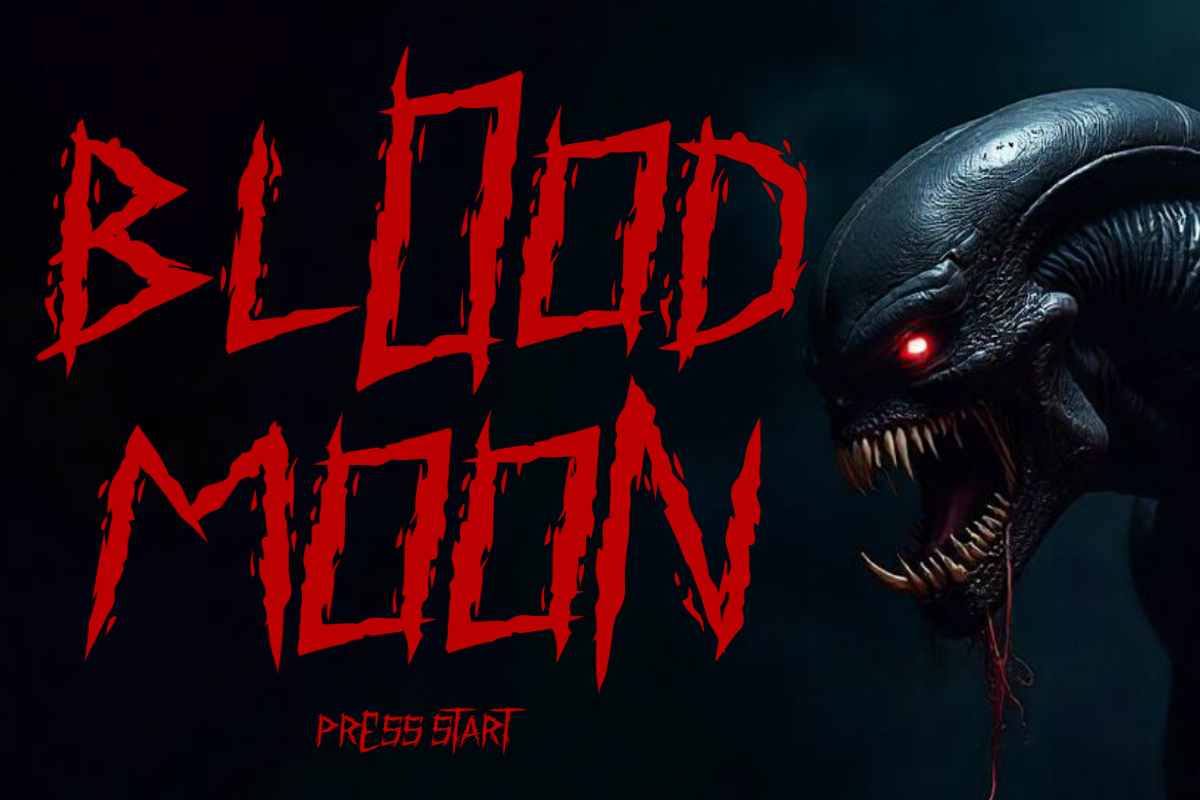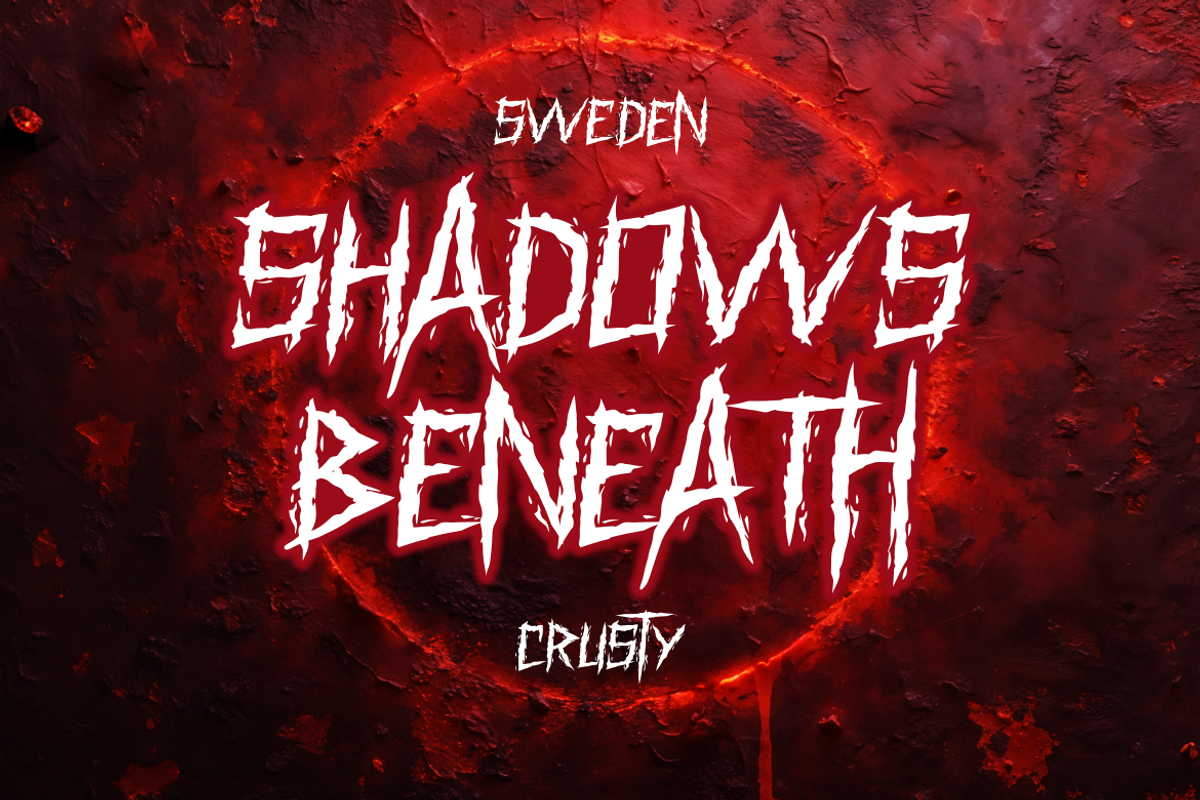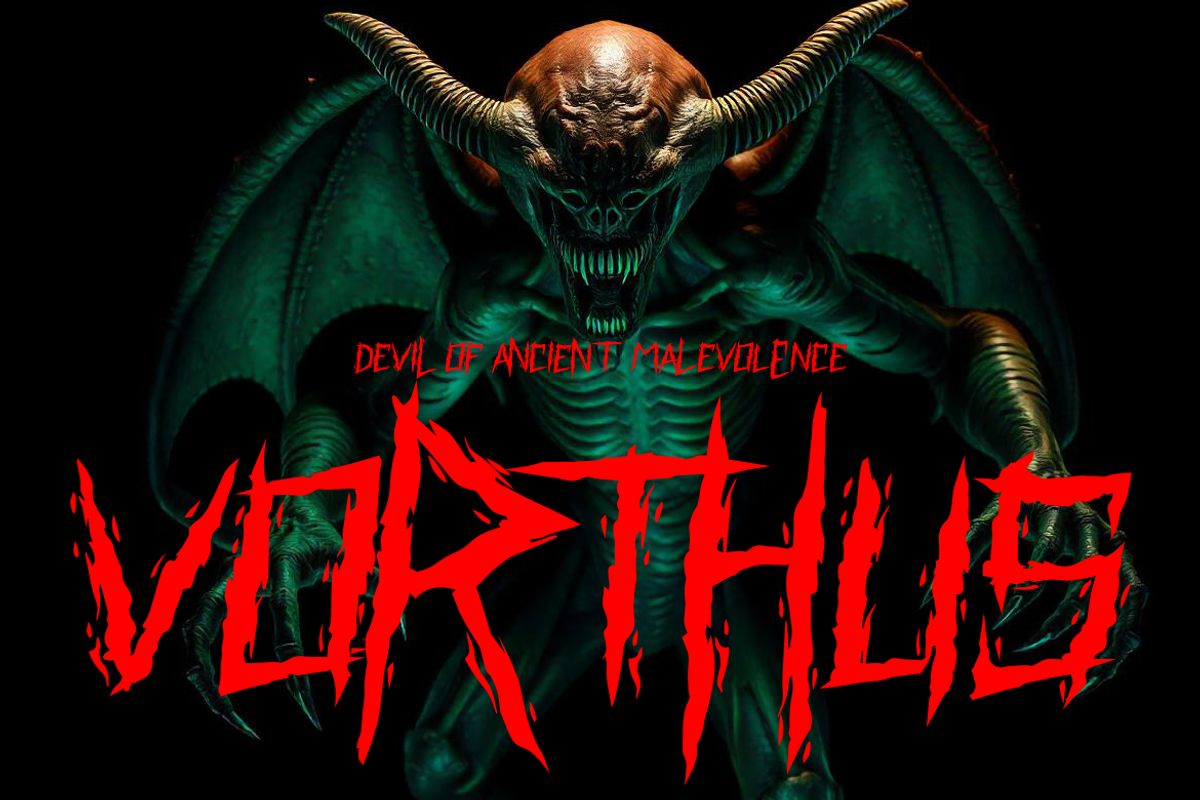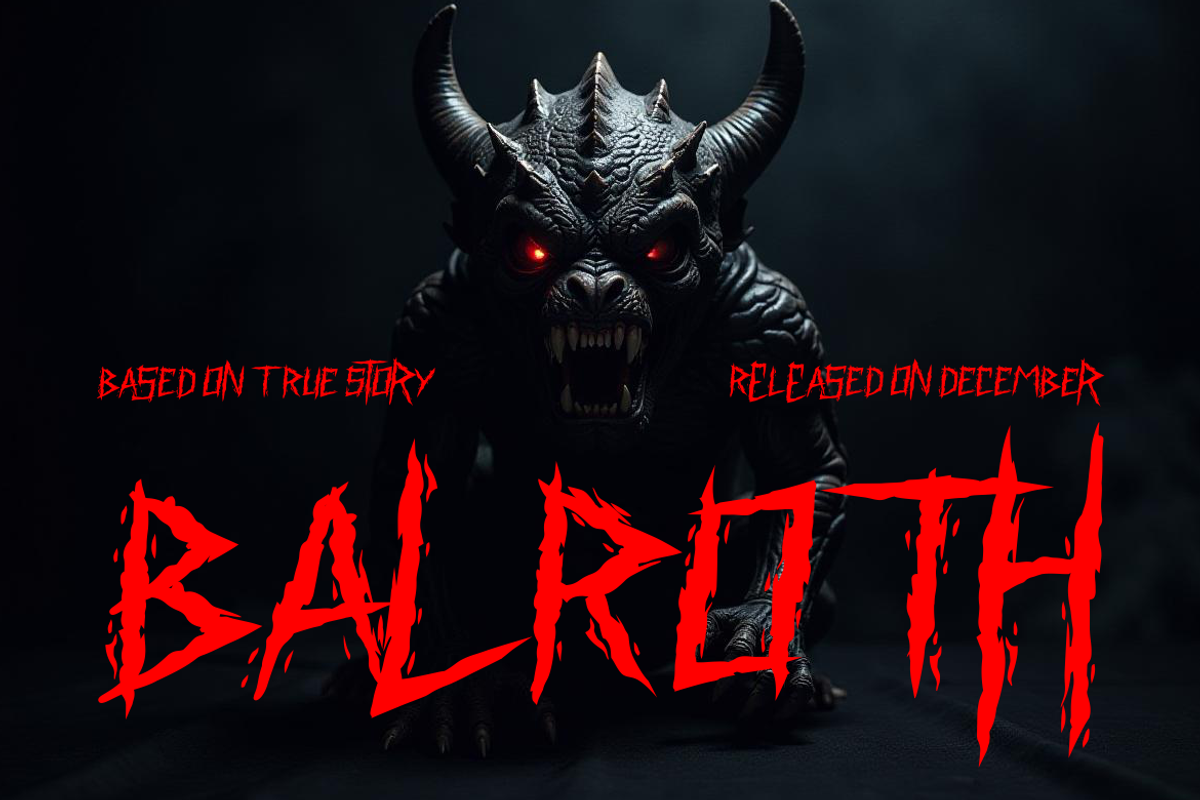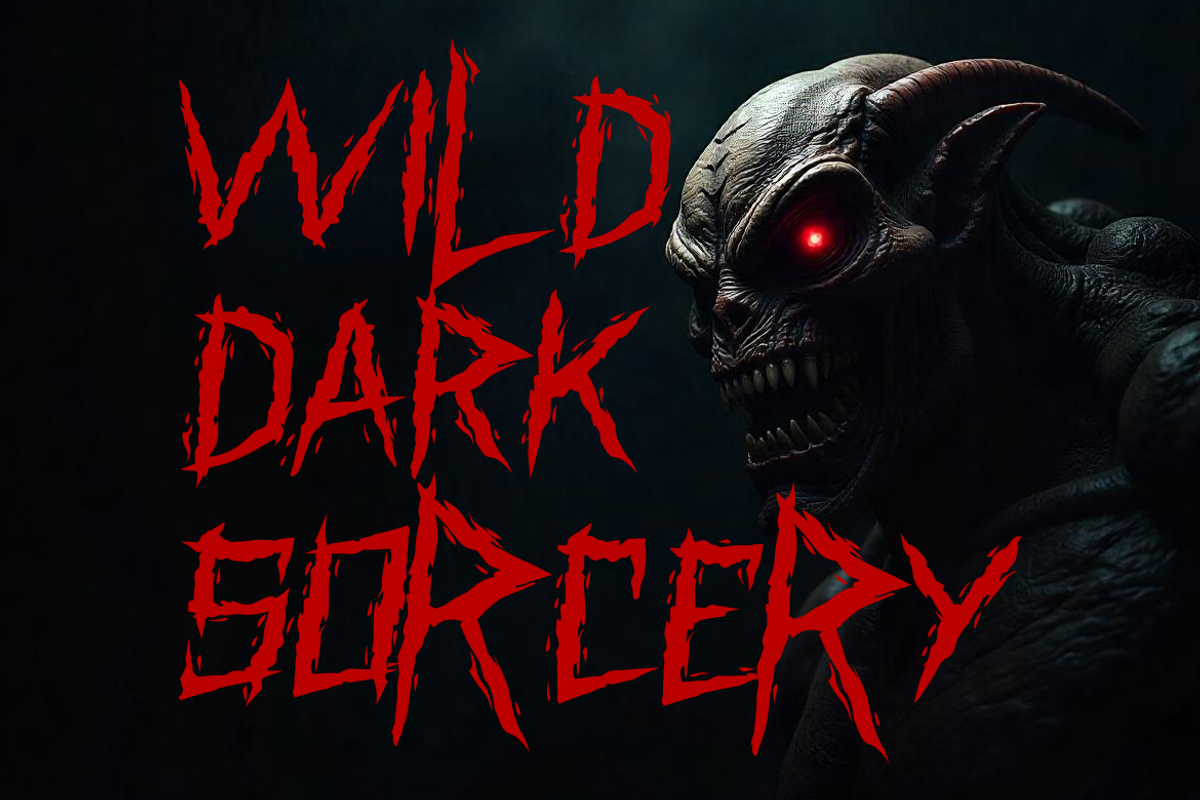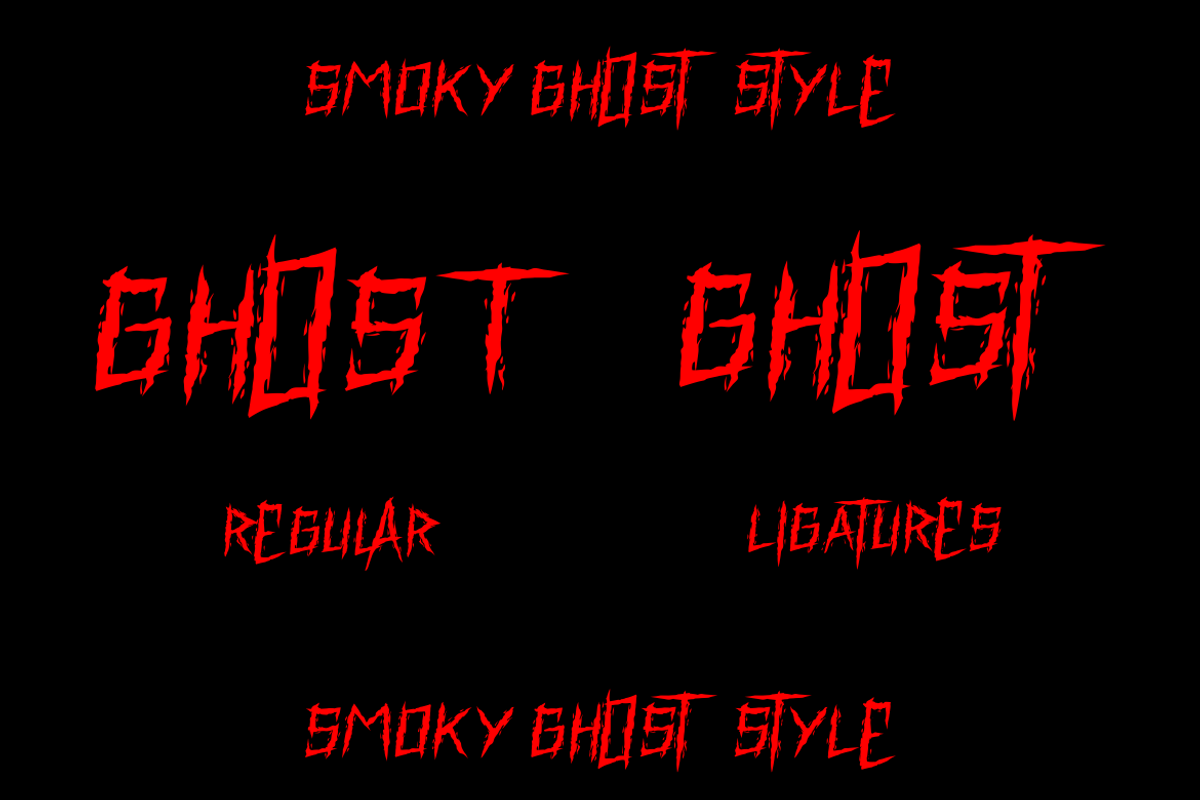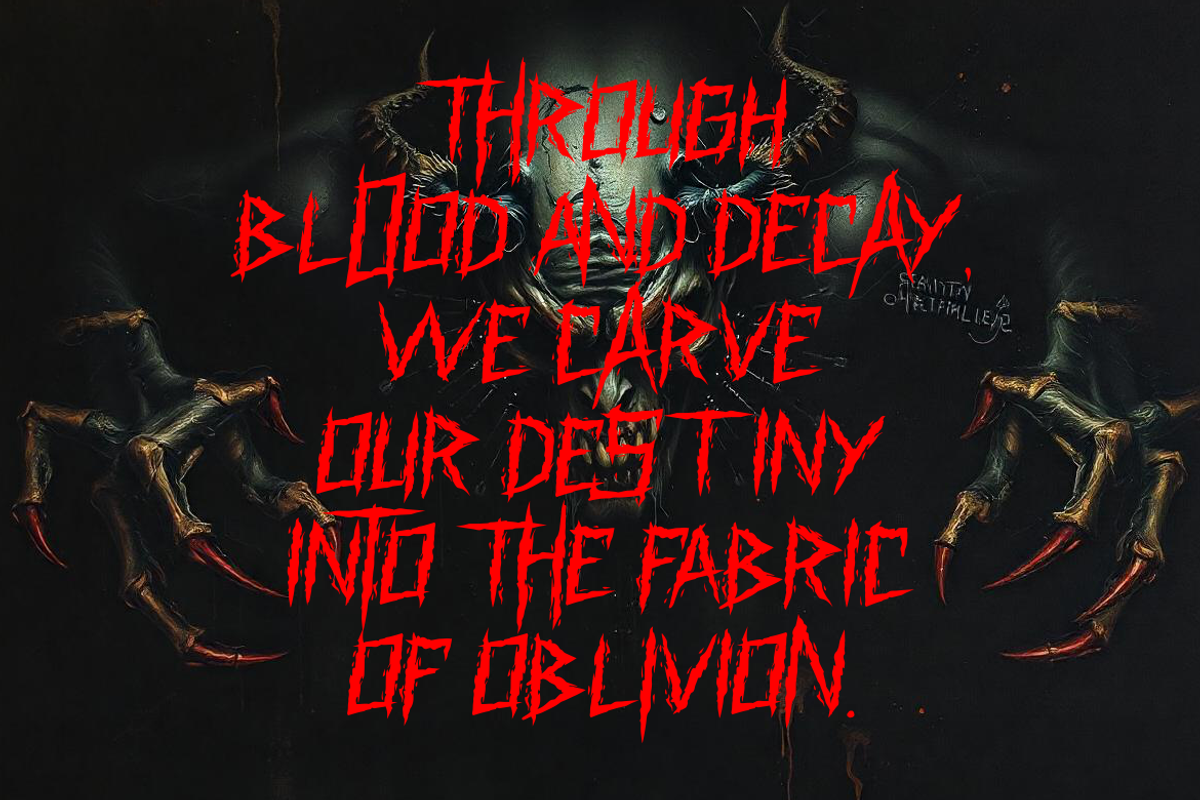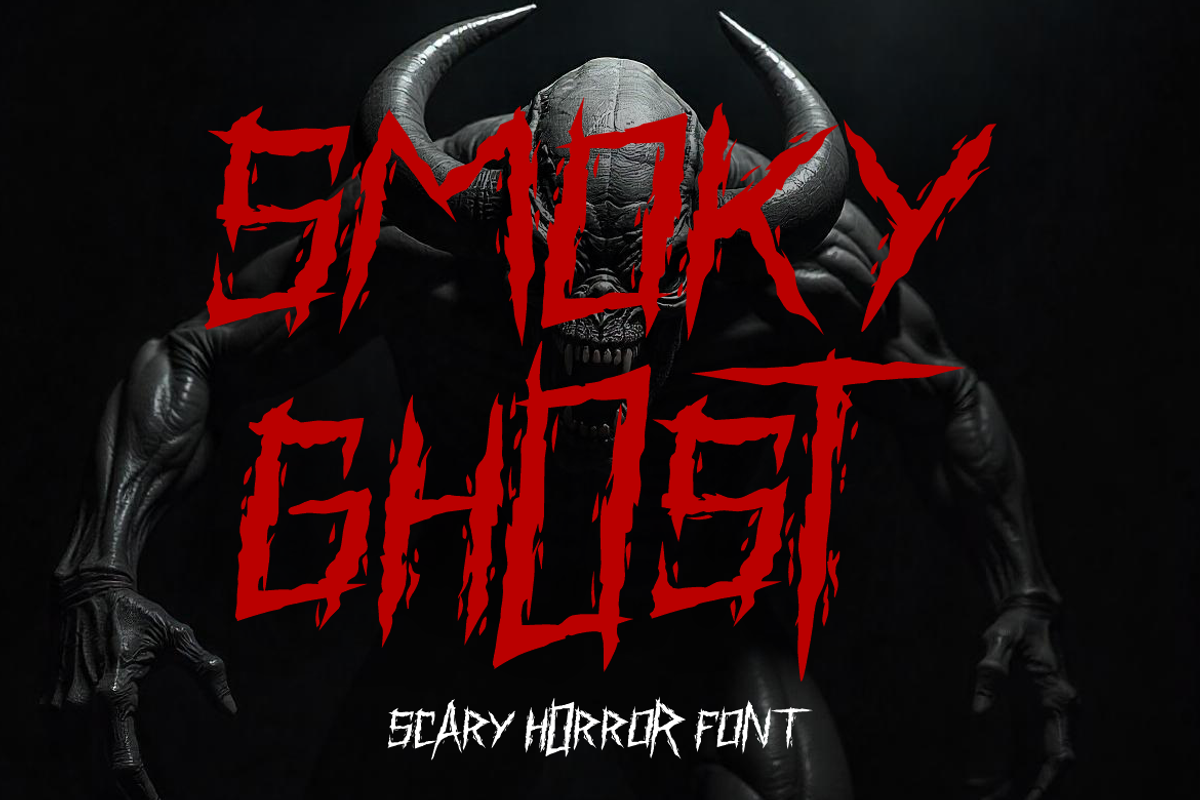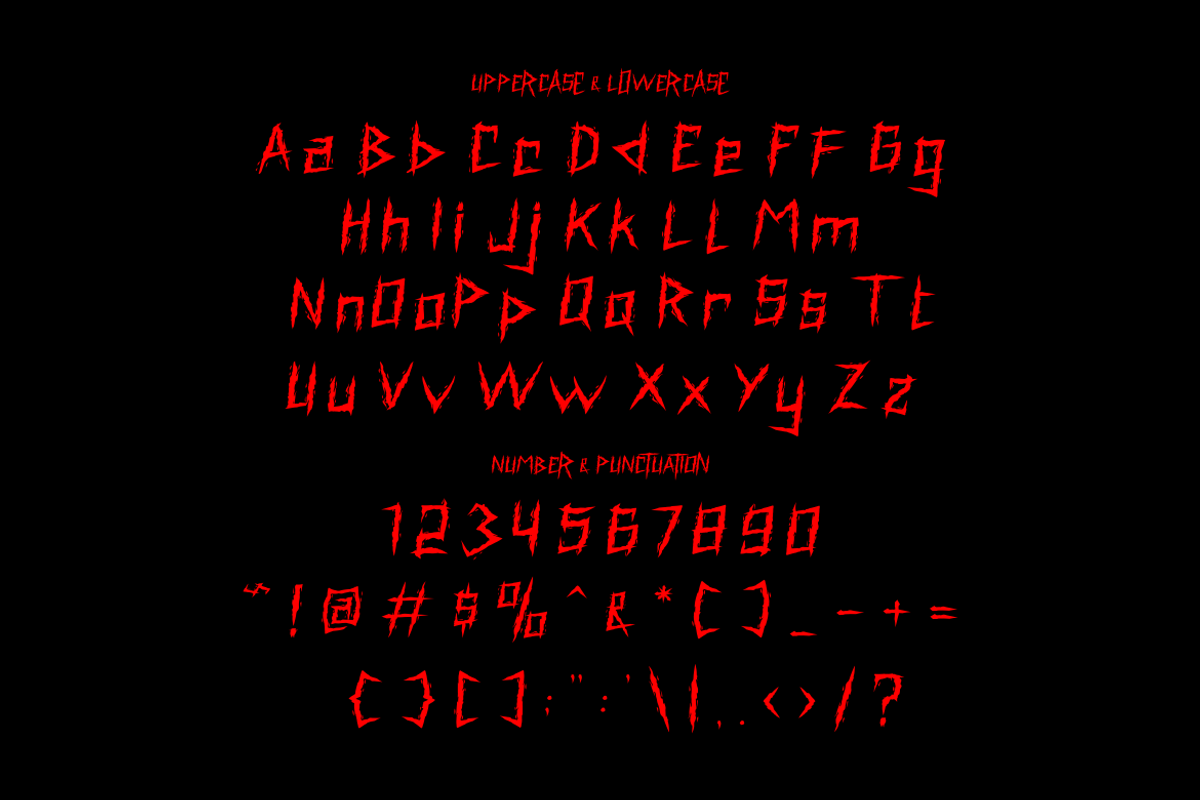
Smoky Ghost - Scary Horror Font
Introducing Smoky Ghost, a terrifying and edgy scary horror font designed to give your projects a hauntingly intense atmosphere. With its jagged, dripping strokes and irregular, smoky texture, Smoky Ghost instantly evokes a sense of fear and darkness. The red font color contrasts strikingly against a deep, ominous black background, enhancing its chilling effect and making it ideal for horror-themed designs. Perfect for Halloween invitations, horror movie posters, haunted attraction signage, or eerie book covers, this font will captivate and unsettle your audience at first glance. Smoky Ghost’s raw, untamed appearance embodies the spirit of the supernatural, making it the ultimate font for any spine-chilling project.
This font’s bold and aggressive design makes it highly versatile for various applications, including logos, branding, crafting, and more. Its terrifying aesthetic is perfect for themes revolving around horror, thrillers, and dark fantasy. From posters and stickers to magazine covers and business logos, Smoky Ghost ensures that your creations will stand out with an intense, memorable impact. Embrace the fear factor and unleash the full potential of Smoky Ghost in your next design, whether it’s for Halloween or any other horror-themed event.